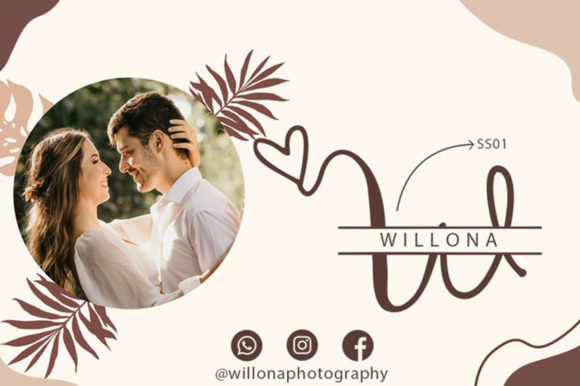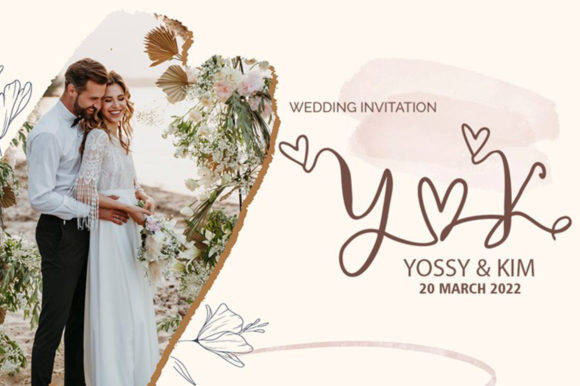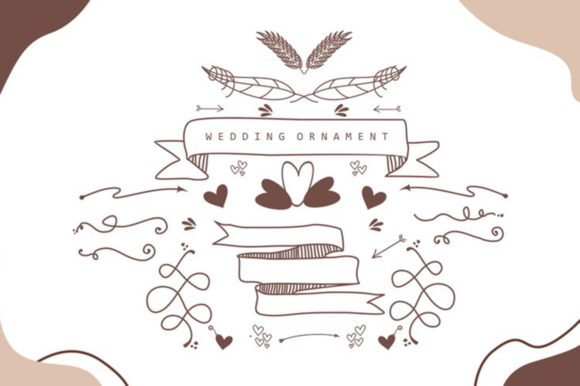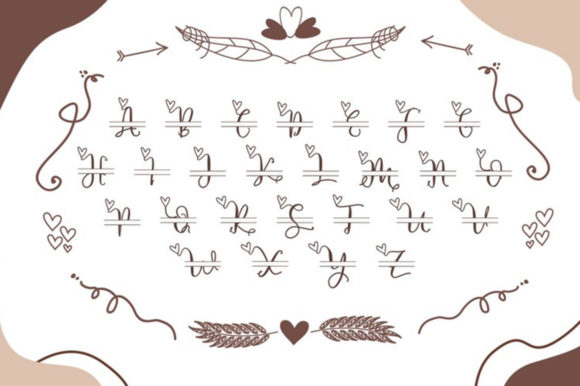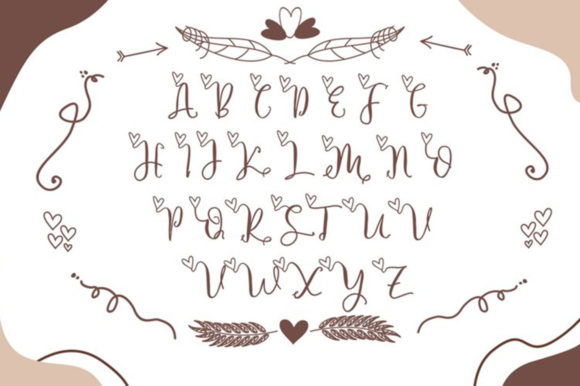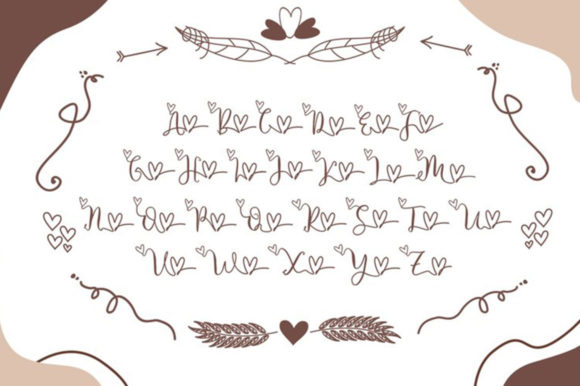
Couple Monogram Font: The Perfect Addition to Your Wedding Designs
Are you a designer or crafter looking for a romantic and elegant font to add a personal touch to your wedding-related designs? Look no further than the Couple Monogram Font. This beautiful decorative font is specifically designed to bring a touch of love and sophistication to any wedding-related project.
What is Couple Monogram Font?
Couple Monogram Font is a romantic decorative font that’s very suitable for anything wedding-related. You can use it on wedding invitations, wedding decorations, and every design that needs a romantic handwritten touch. The font features elegant and cursive letters that are intertwined with love, making it perfect for couples who want to add a personal touch to their special day.
Features of Couple Monogram Font
- Romantic and Elegant Design: The Couple Monogram Font features a beautiful and elegant design that is perfect for wedding-related designs. The font is carefully crafted to provide a romantic and sophisticated look that will make your designs stand out.
- Handwritten Touch: The font has a handwritten touch that makes it look like it was written with love. This feature makes it perfect for adding a personal touch to your designs.
- Versatile: The Couple Monogram Font is versatile and can be used on various wedding-related designs, including invitations, decorations, and more.
Uses of Couple Monogram Font
The Couple Monogram Font is perfect for various wedding-related designs, including:
- Wedding Invitations: Add a personal touch to your wedding invitations with the Couple Monogram Font. You can use it to write the invitation letter or to create a beautiful monogram.
- Wedding Decorations: Use the Couple Monogram Font to create beautiful wedding decorations, such as banners, garlands, and more.
- Wedding Stationery: The font is perfect for creating beautiful wedding stationery, including thank-you cards, save-the-date cards, and more.
- Wedding Website: Add a personal touch to your wedding website with the Couple Monogram Font. You can use it to create a beautiful welcome message or to write a love letter.
Tips for Using Couple Monogram Font
Here are some tips for using the Couple Monogram Font:
- Pair it with Other Fonts: You can pair the Couple Monogram Font with other fonts to create a unique and interesting design.
- Experiment with Colors: Experiment with different colors to find the perfect combination that matches your wedding theme.
- Use it Sparingly: Use the Couple Monogram Font sparingly to avoid overwhelming your design. You can use it to highlight important information or to add a personal touch.
In conclusion, the Couple Monogram Font is a beautiful and elegant font that’s perfect for wedding-related designs. Its romantic and handwritten touch makes it a popular choice among designers and crafters. With its versatility and ease of use, you can create beautiful wedding designs that will make your clients or loved ones happy. So why wait? Download the Couple Monogram Font today and start creating stunning wedding designs.